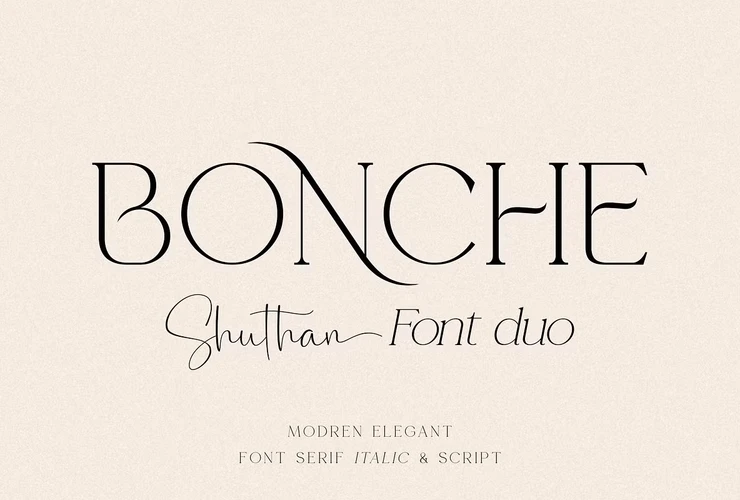
Elevate Your Design Projects with Bonche Shuthan Font Duo
Bonche Shuthan Font Duo offers a perfect blend of elegance and versatility, making it an essential addition to any designer’s toolkit. This serif font duo is designed to bring sophistication and style to a variety of creative projects. Whether you’re working on invitation cards, business logos, or movie titles, Bonche Shuthan provides the ideal balance of smooth, elegant character and functionality.
Why Choose Bonche Shuthan?
Bonche Shuthan stands out for its refined design, which effortlessly combines beauty with practicality. Its balanced character makes it suitable for both formal and creative projects, offering designers a versatile tool that enhances the overall aesthetic of their work. Whether you’re crafting a corporate brand identity or a book title, Bonche Shuthan delivers the polished look your project deserves.
Key Features of Bonche Shuthan Font Duo:
Elegant Design: The font’s smooth and stylish serif design is perfect for creating a sophisticated and polished look in your projects.
Versatile Applications: Ideal for a wide range of uses, including invitation cards, company logos, movie titles, business cards, and more.
Comprehensive Character Set: Includes both uppercase and lowercase letters, as well as numbering and punctuation, ensuring you have all the characters you need.
Ligatures Included: Enhance your typography with beautifully crafted ligatures that add an extra layer of sophistication to your text.
Versatile Applications:
Bonche Shuthan’s elegant design makes it an excellent choice for a variety of creative and professional projects, including:
Invitation Cards: Create beautifully designed invitations that leave a lasting impression.
Company Logos: Develop a strong, sophisticated brand identity with a font that communicates elegance.
Movie Titles: Add a touch of class to your film projects with striking, stylish typography.
Business Cards: Design business cards that stand out with a refined and professional look.
Book Titles: Give your literary work the distinguished cover it deserves with Bonche Shuthan’s elegant typeface.
Bonche Shuthan Font Duo is the epitome of elegance and functionality, offering designers a versatile tool for enhancing the visual appeal of their projects. With its stylish serif design, comprehensive character set, and ease of use, this font duo is perfect for a wide range of creative applications.